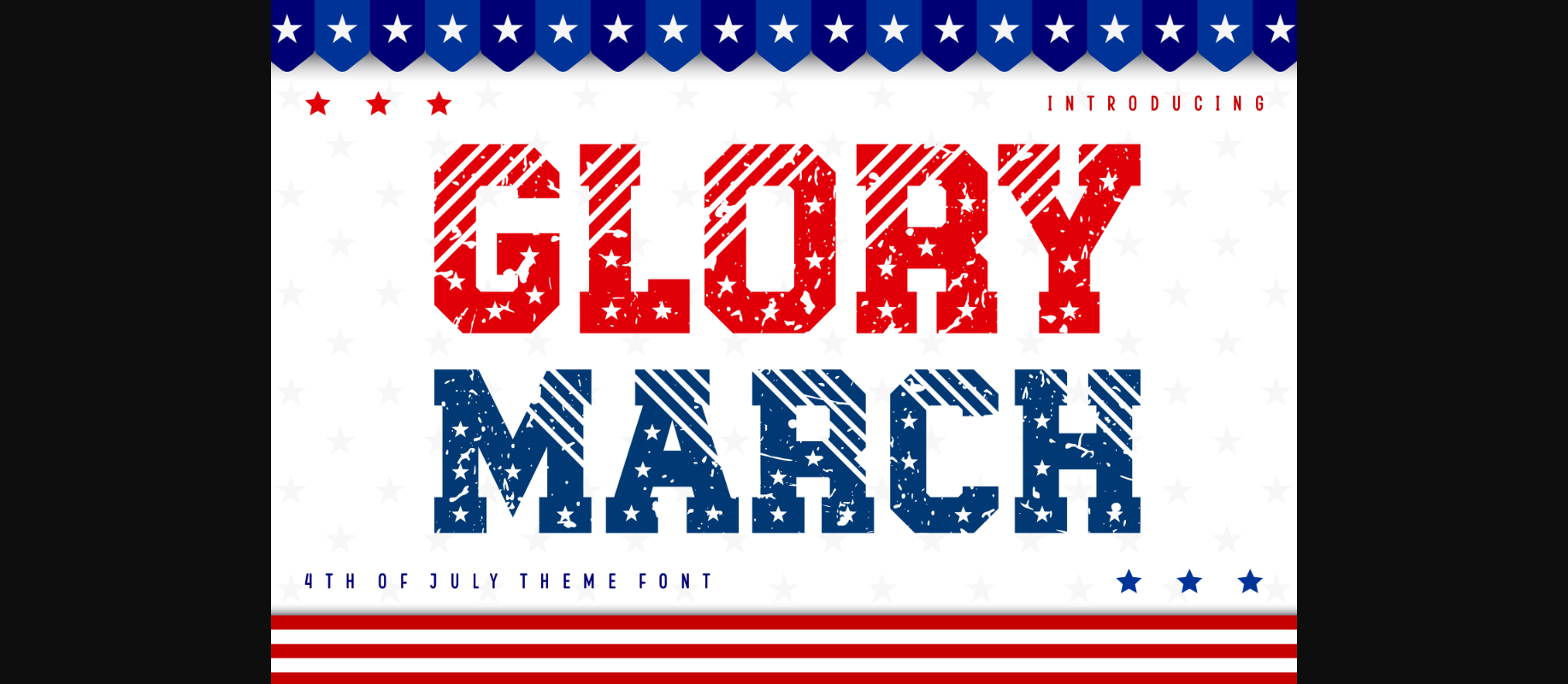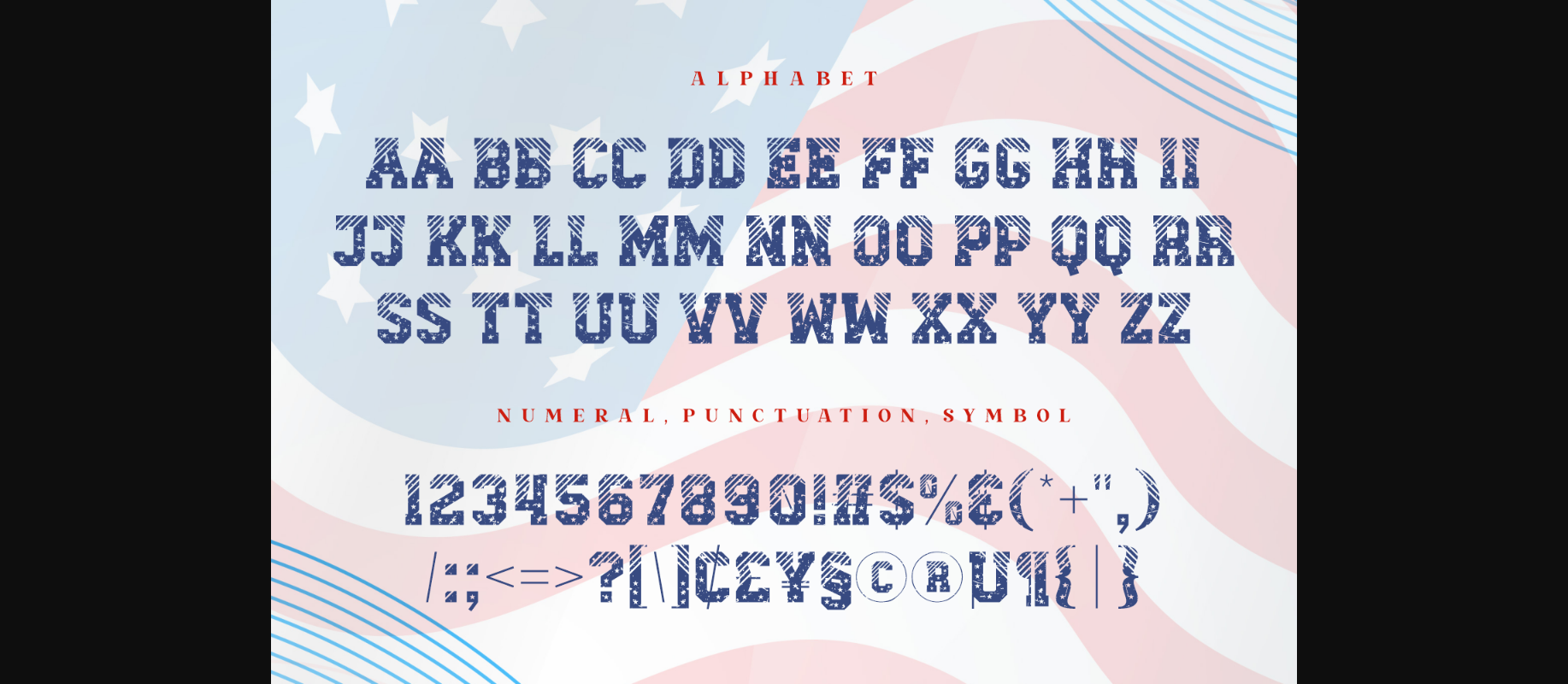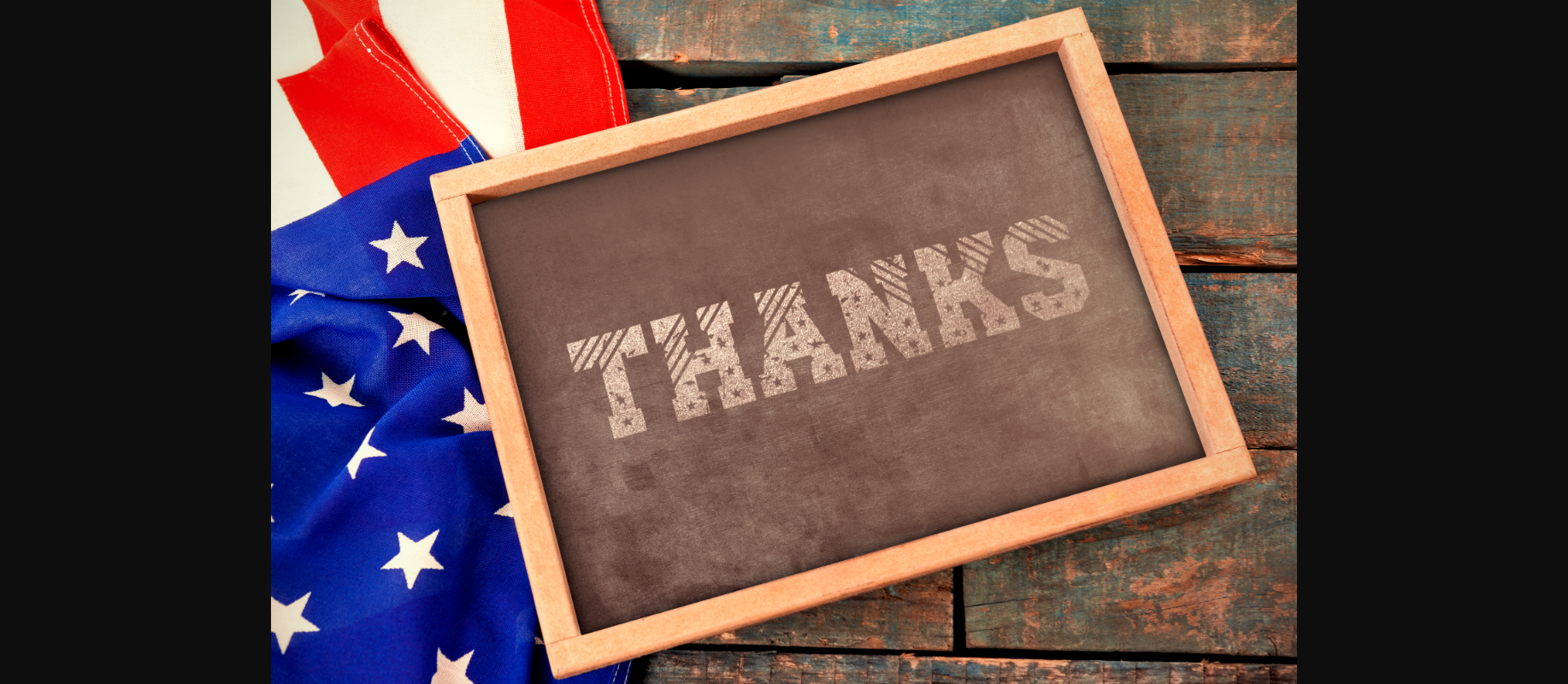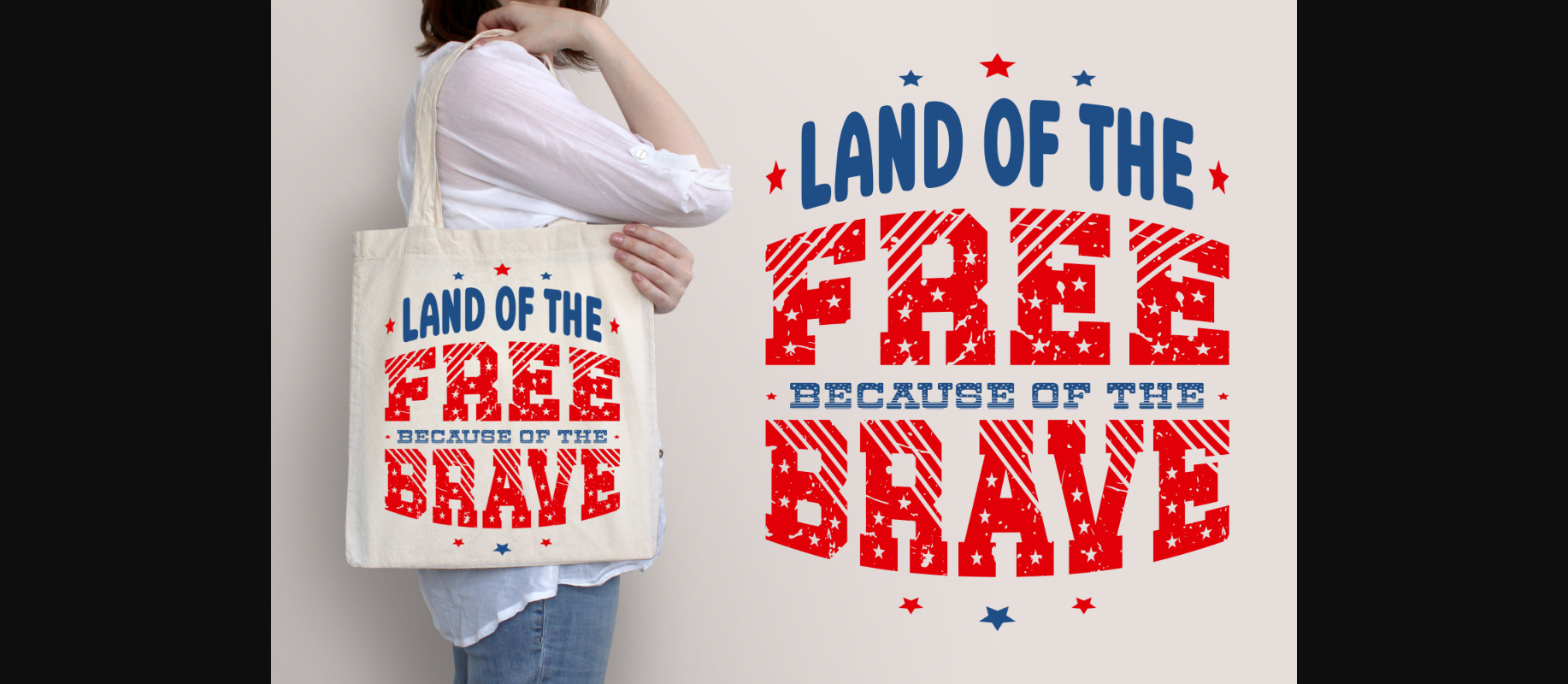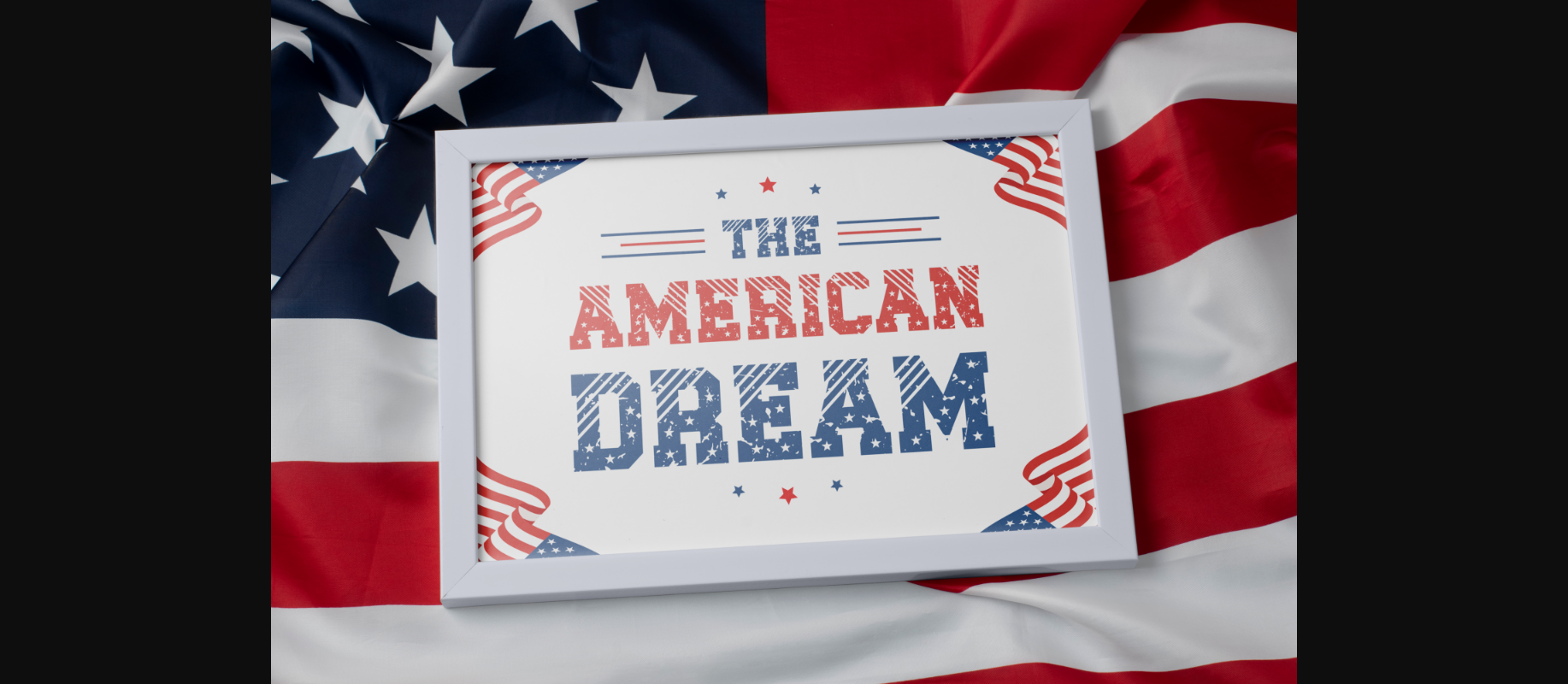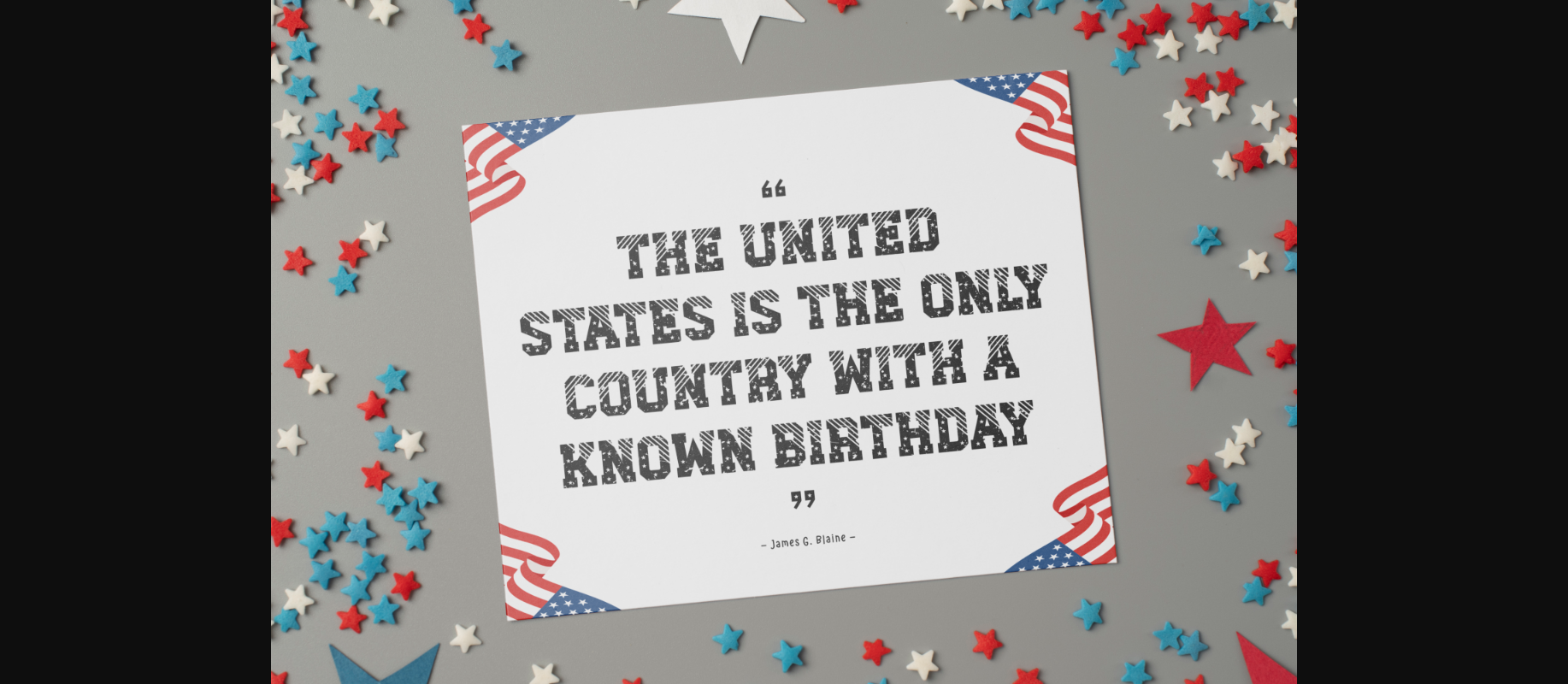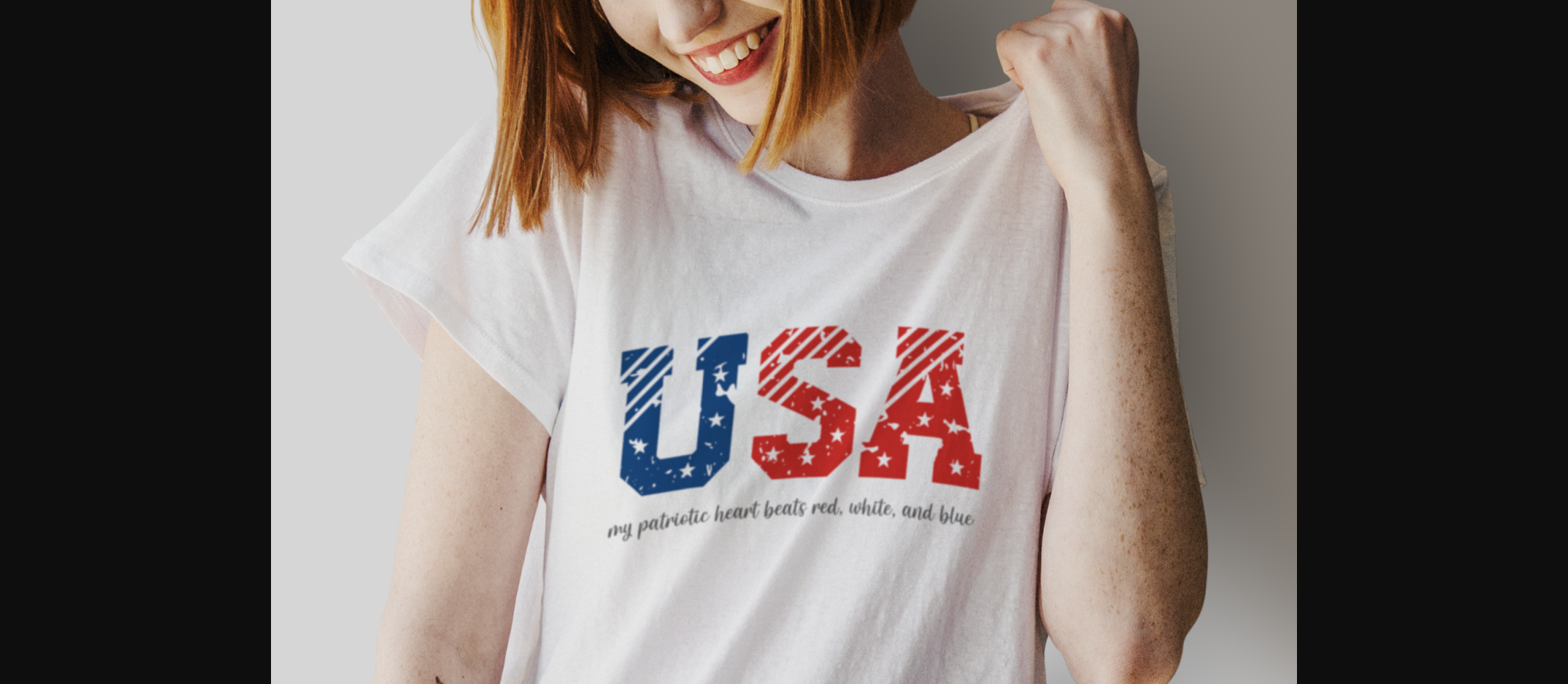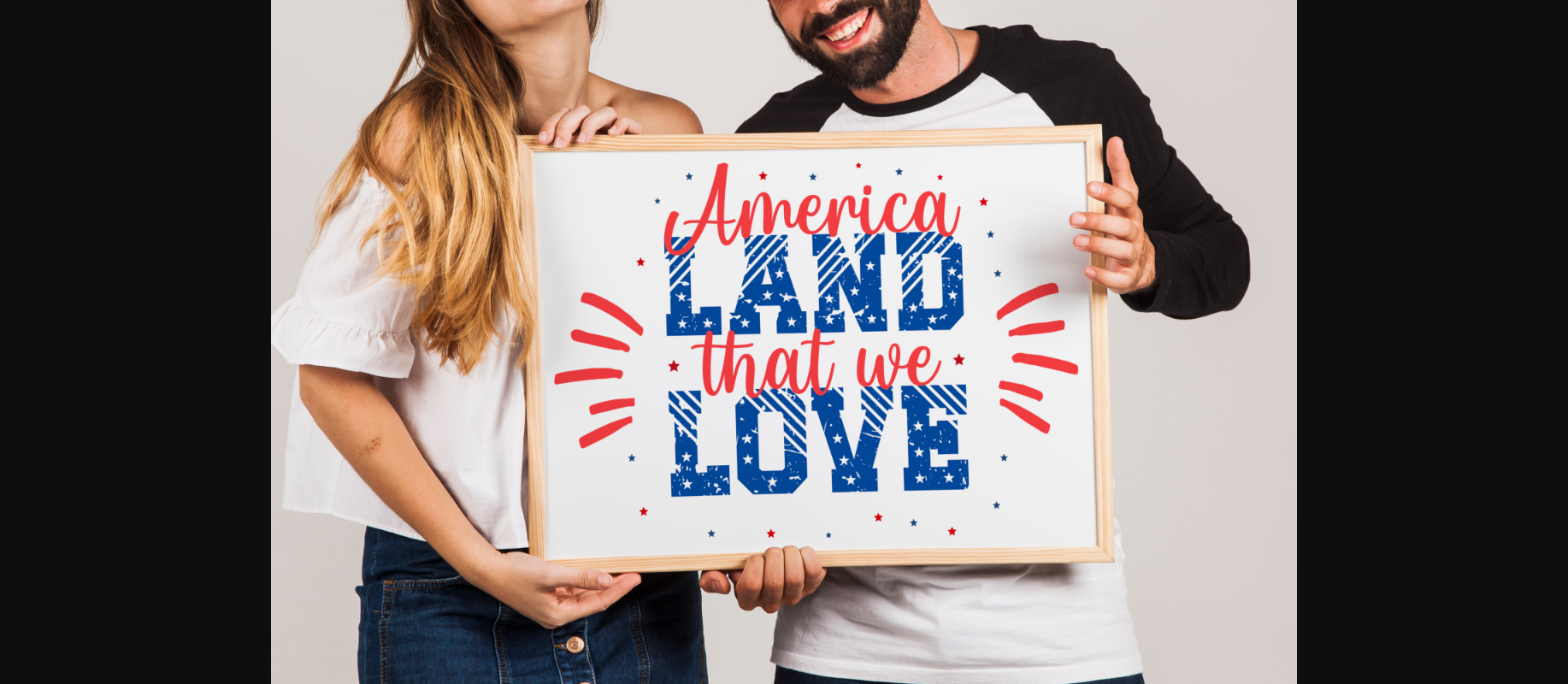
About Glory March Font
The decorative font features an American flag motif that beautifully incorporates the iconic stars and stripes into the design of each letter. Each character is intricately crafted to evoke the patriotic spirit and symbolize the rich heritage and values associated with the United States.
The stars, representing the states, are placed strategically throughout the font, while the stripes, symbolizing the original thirteen colonies, gracefully flow along the letterforms. This decorative font is perfect for projects that celebrate American culture, history, or events such as Independence Day, Veterans Day, or Memorial Day.